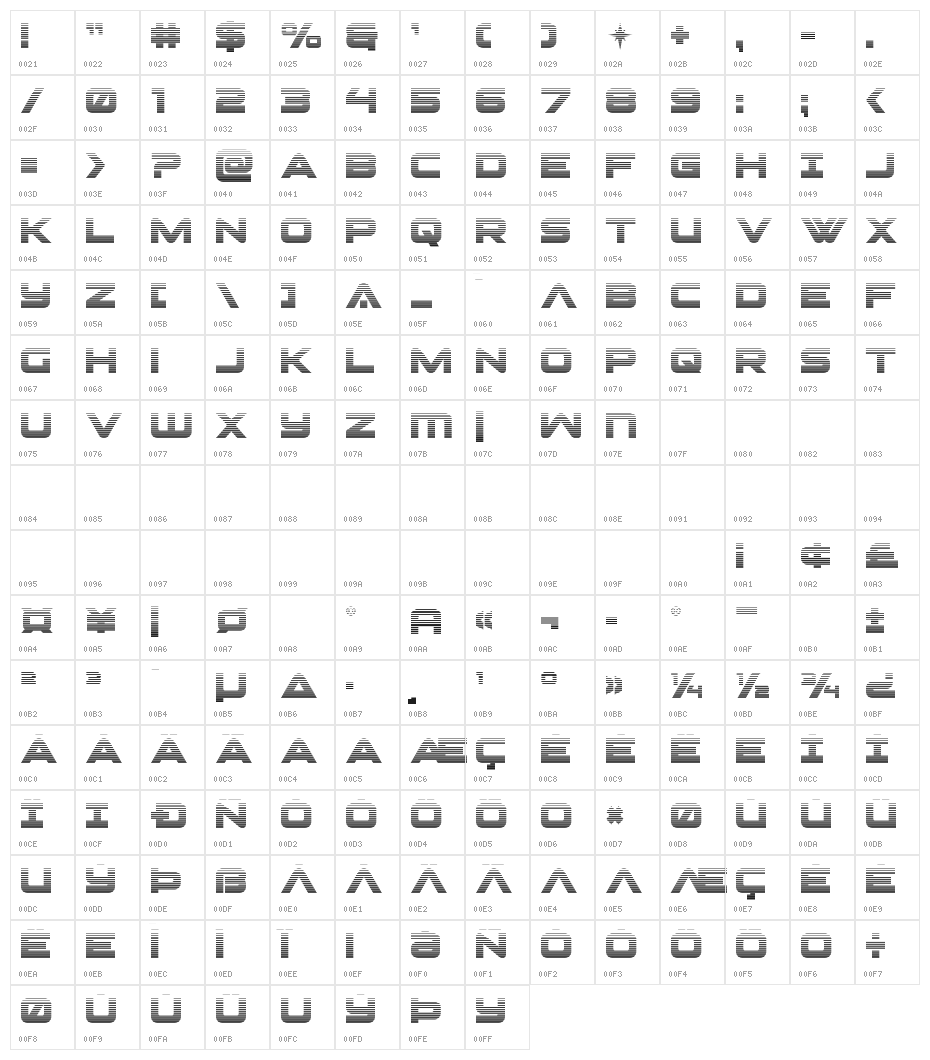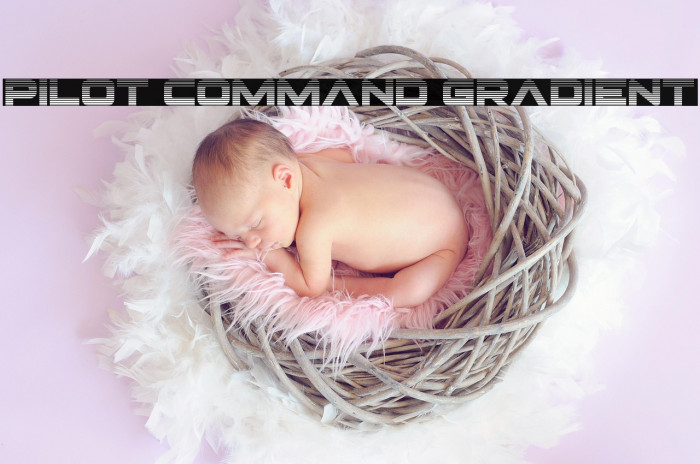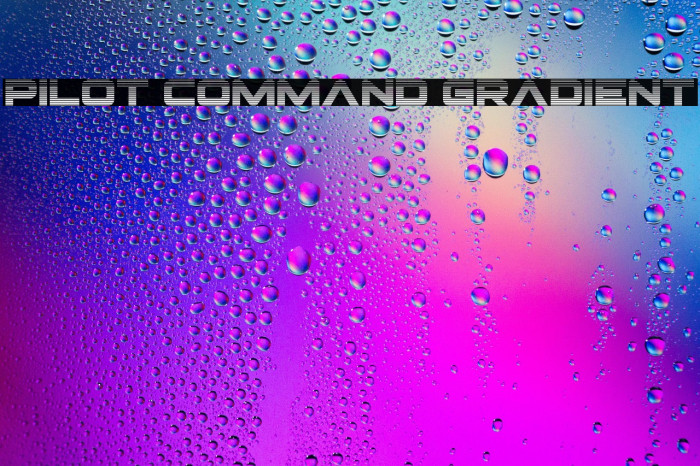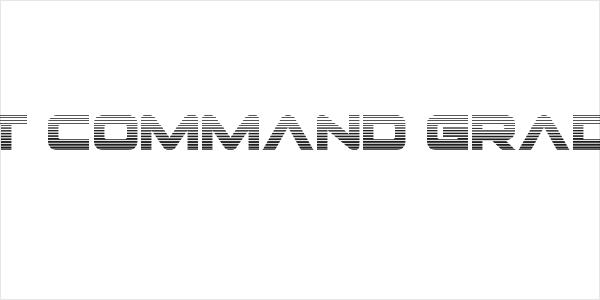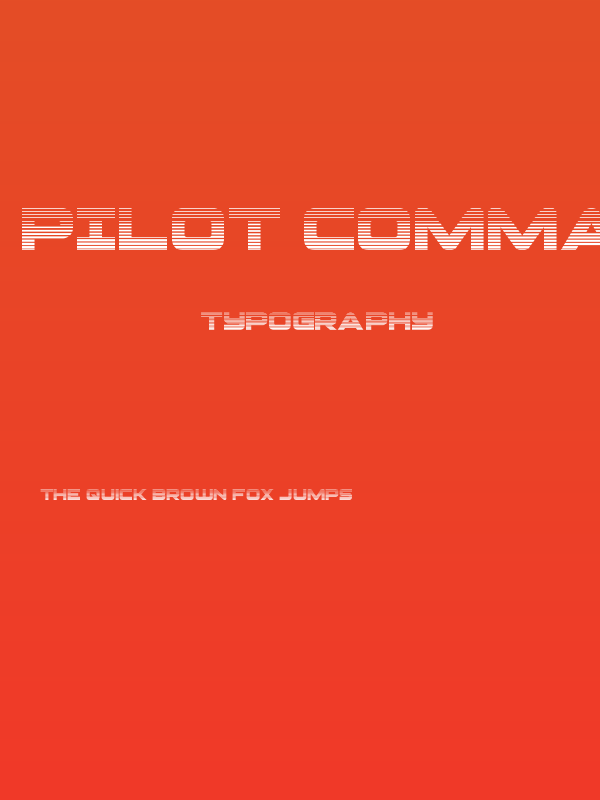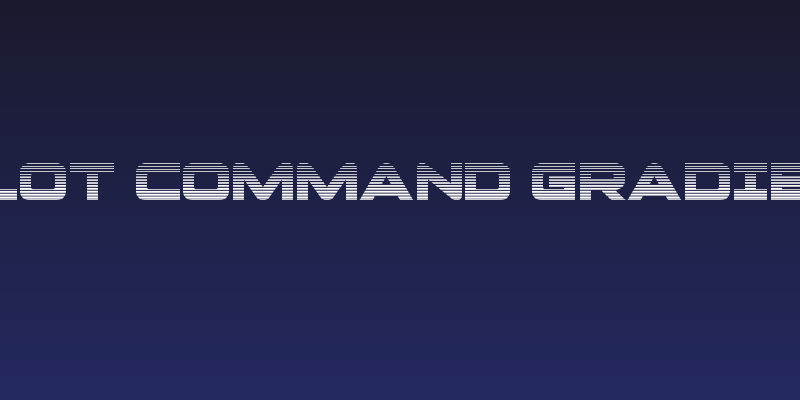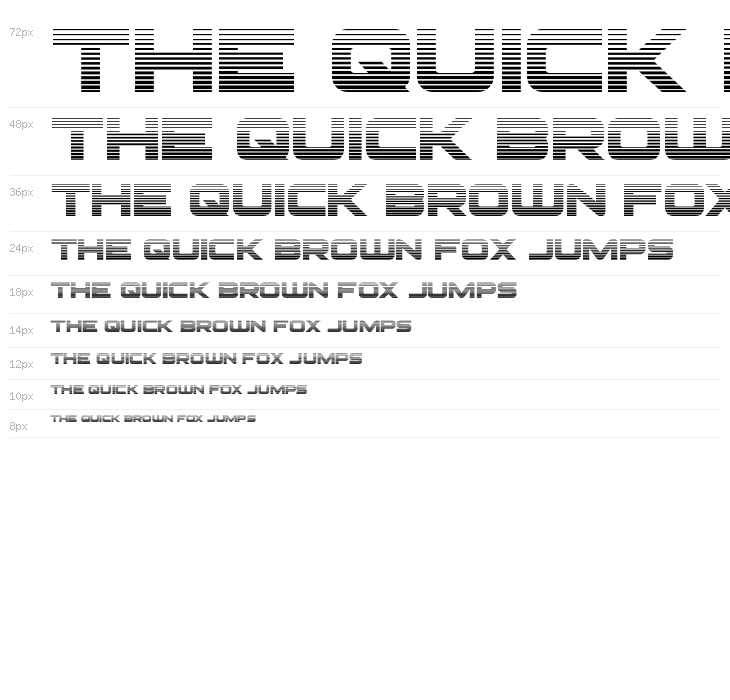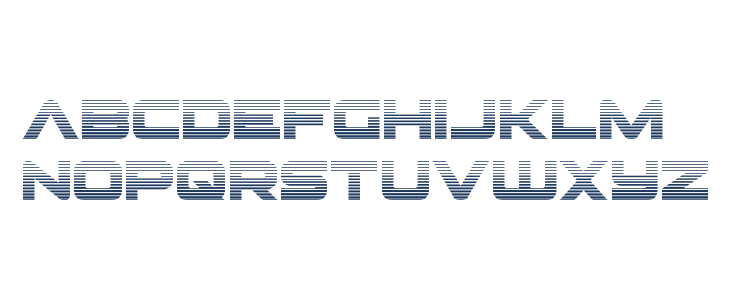
Pilot Command Gradient Font
Pilot Command Gradient Description
This font features a futuristic and dynamic design, characterized by its bold, geometric letterforms. Each character is composed of horizontal lines that create a sense of movement and speed, reminiscent of digital displays or high-tech interfaces. The uppercase and lowercase letters maintain a consistent style, with sharp angles and a uniform width that enhances readability. The numbers and special characters are designed with the same linear pattern, ensuring a cohesive look across all glyphs. This font's unique aesthetic makes it ideal for projects that require a modern and technological feel.
| Proposed Projects | Ideal for technology branding, sci-fi themed designs, video game interfaces, and digital art projects. |